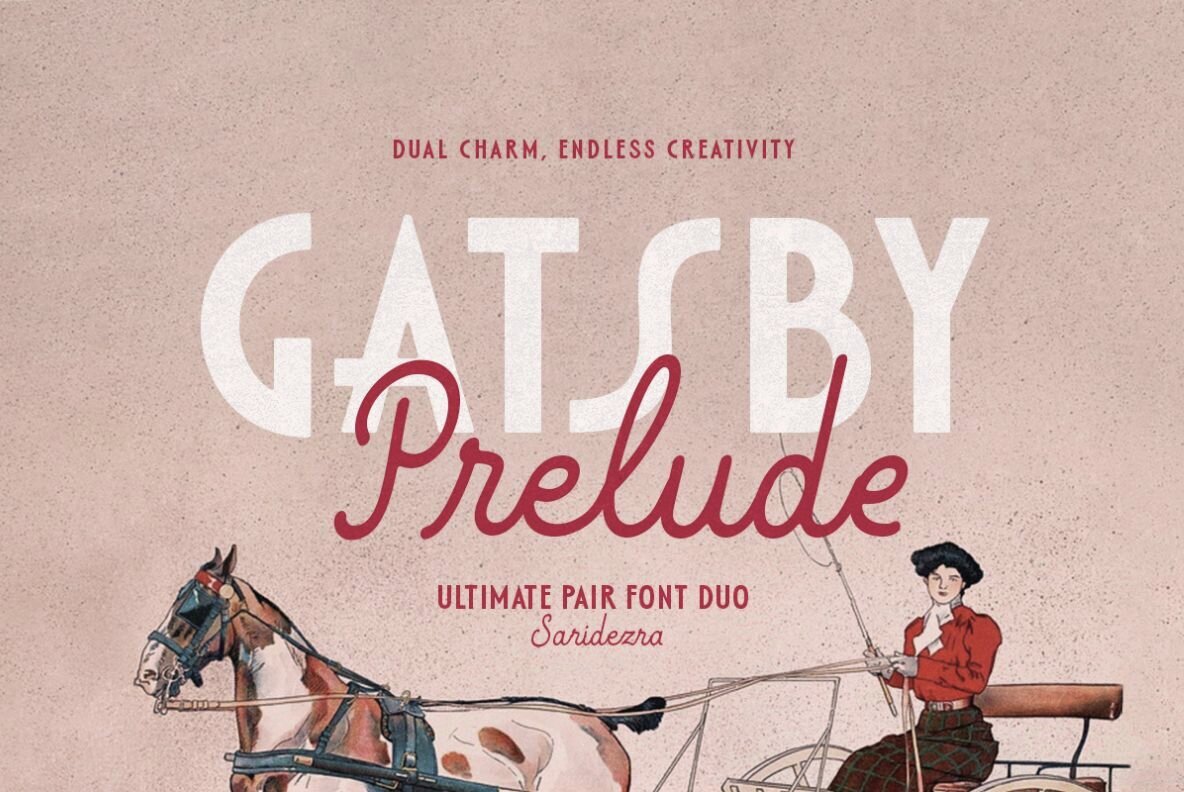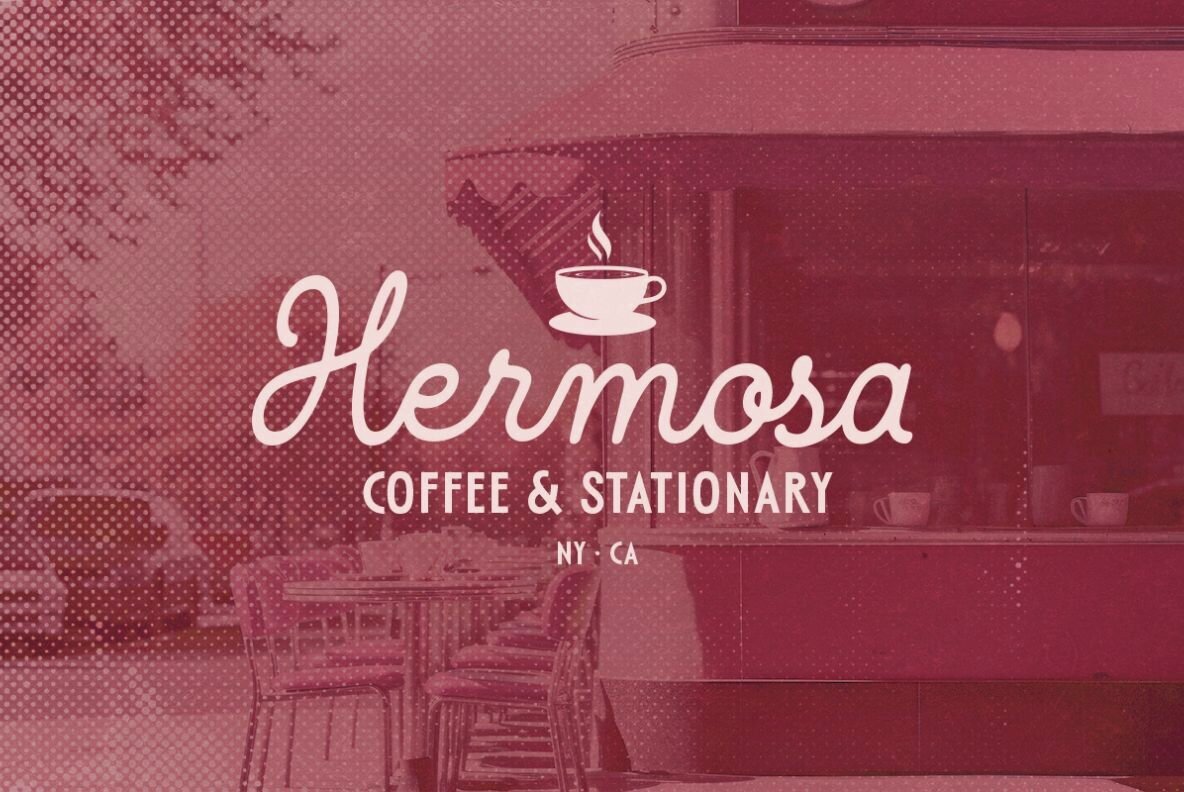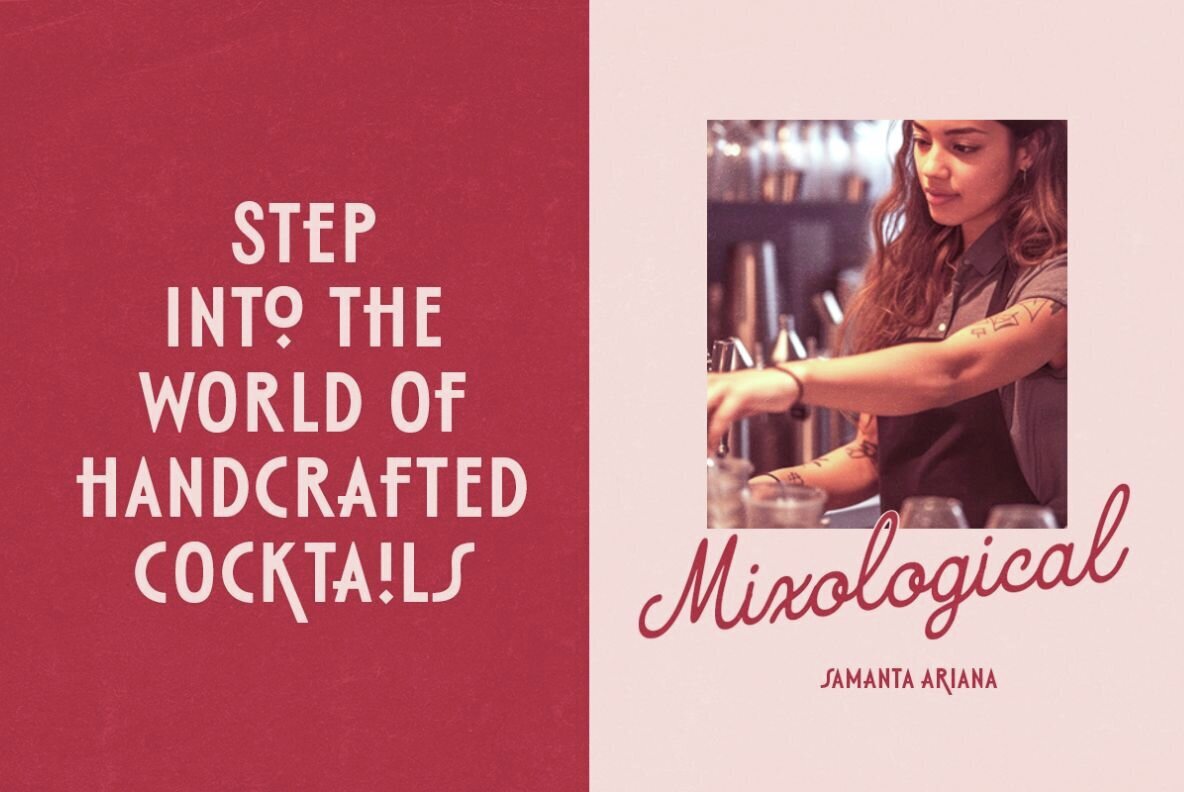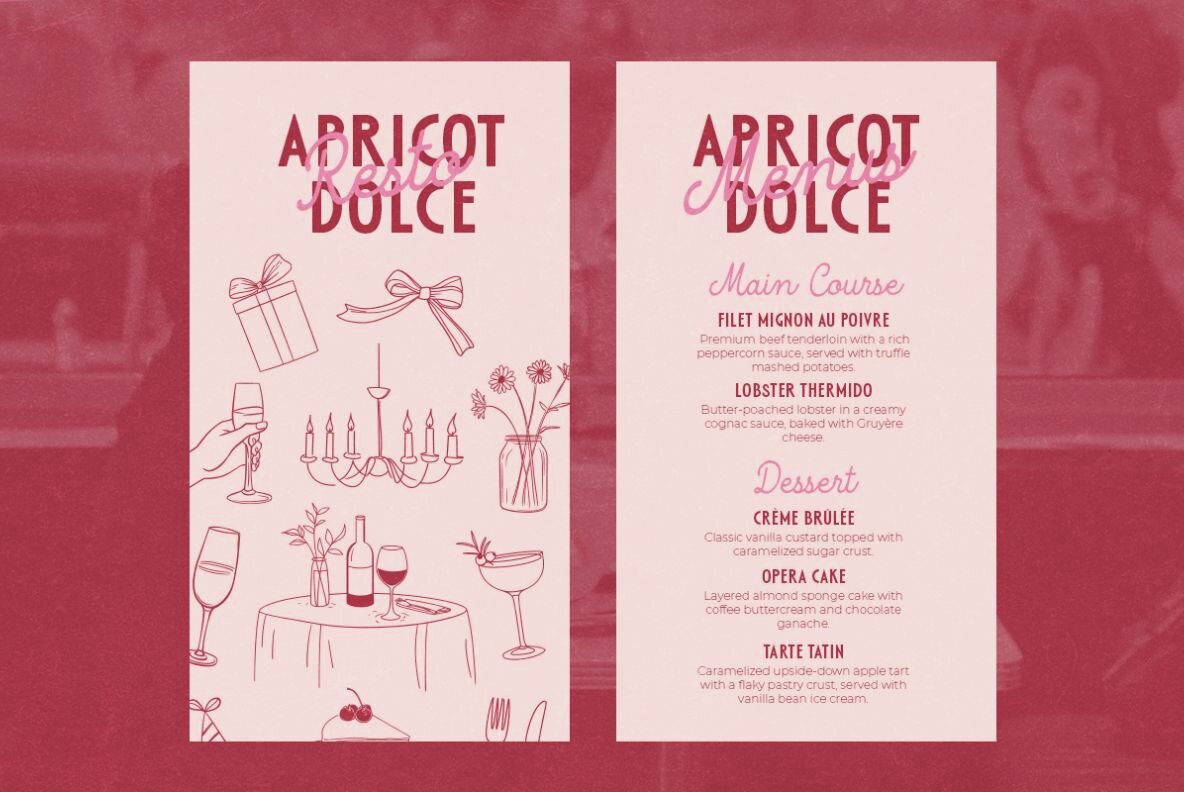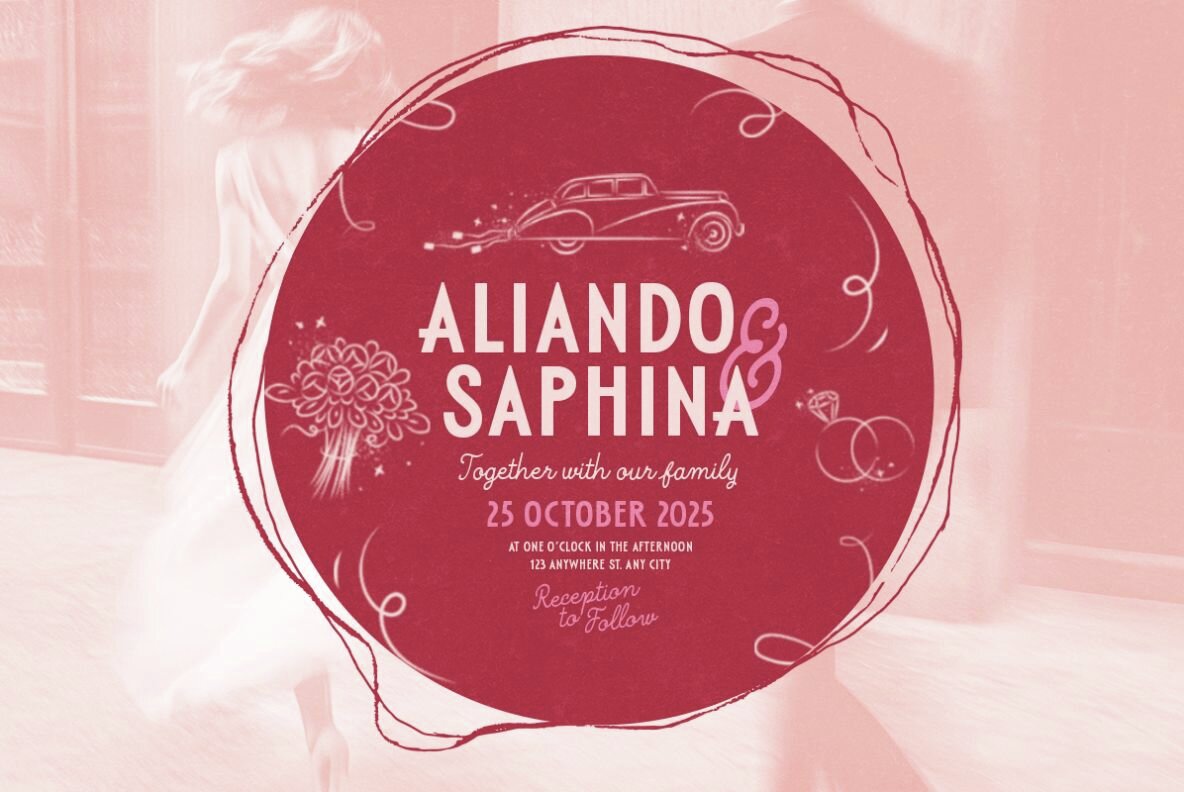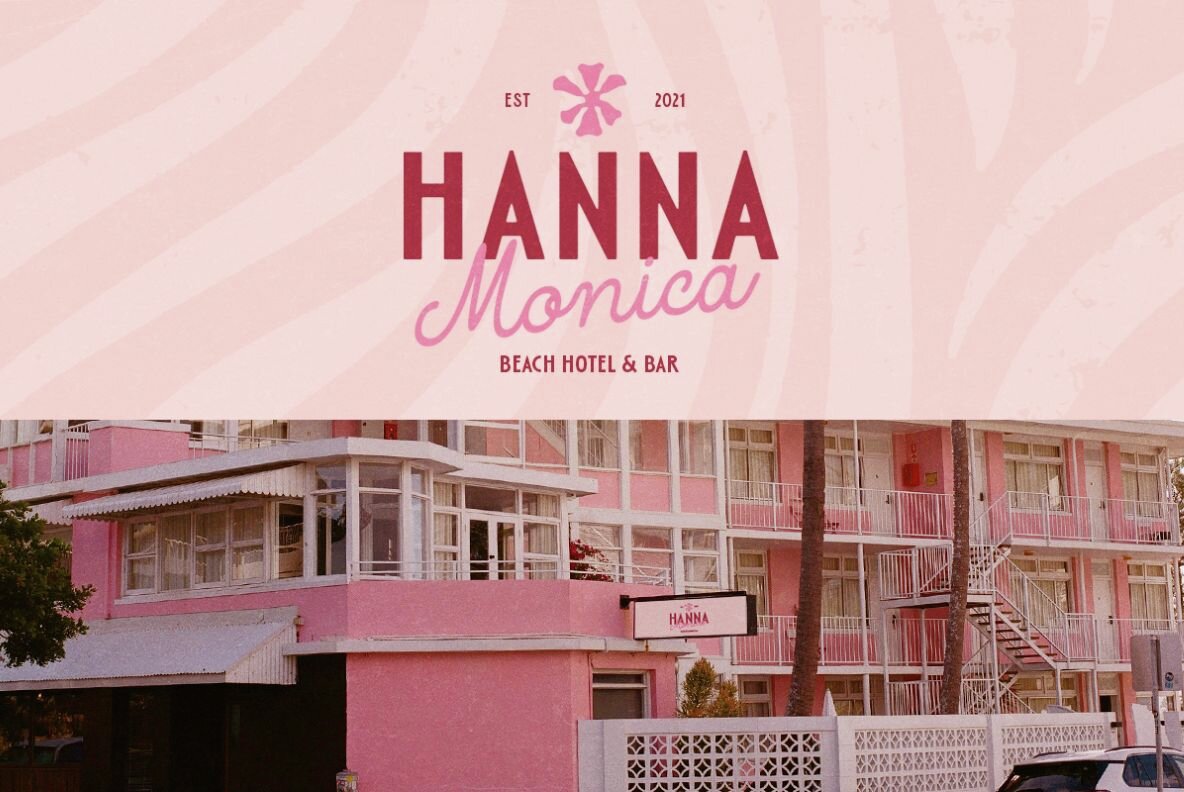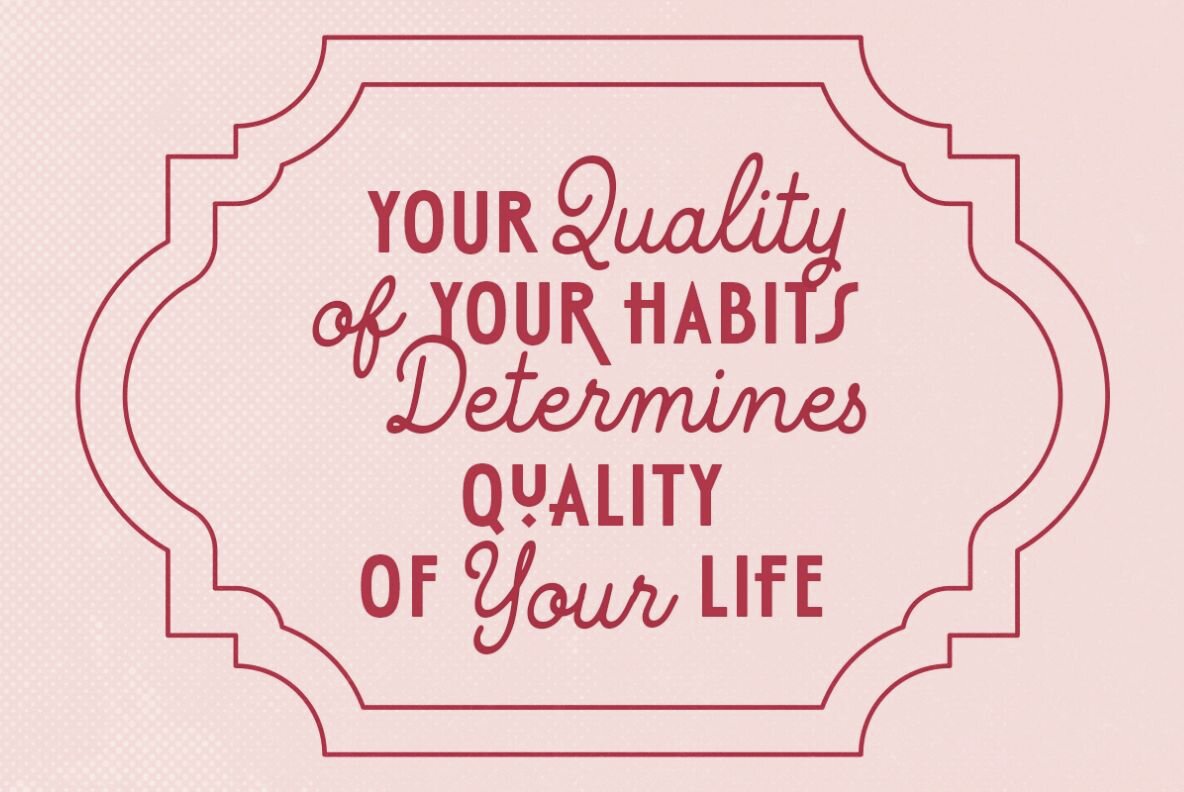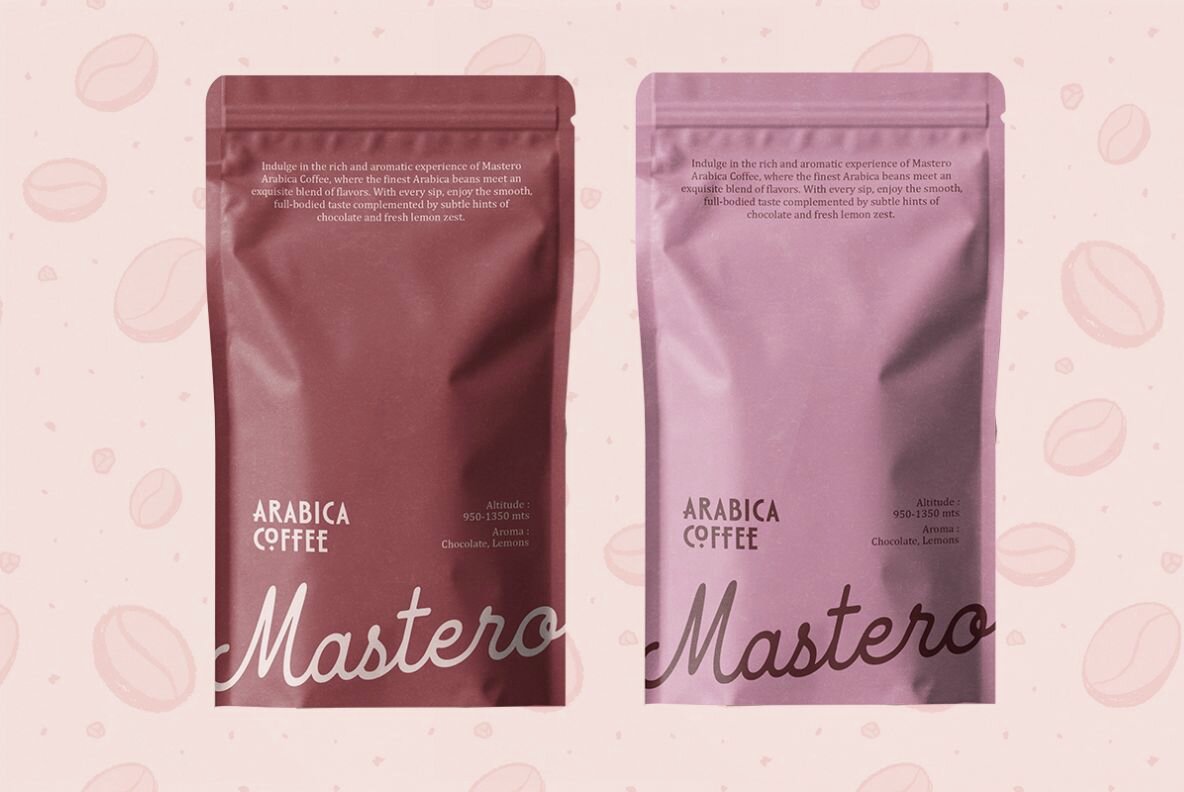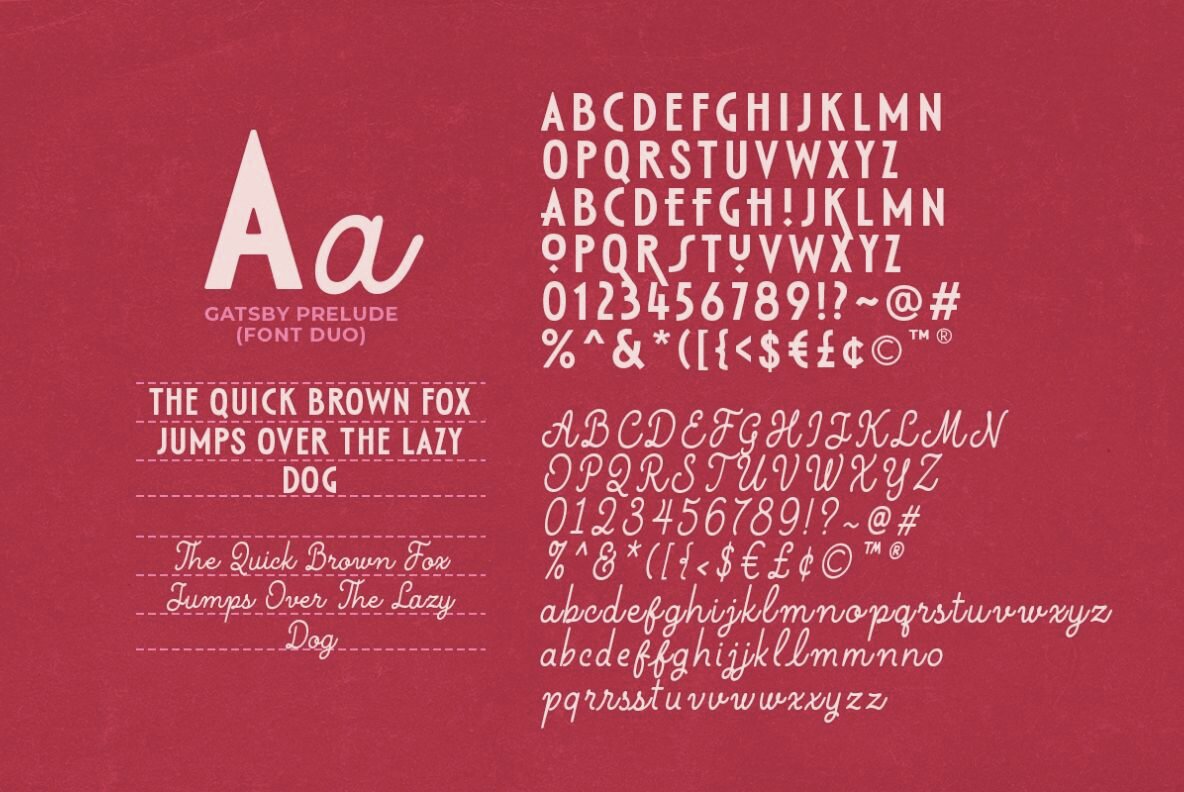
Gatsby Prelude Font
Gatsby Prelude Sans
Gatsby Prelude Script
Gatsby Prelude offers a captivating blend of art deco sans and monoline script, making this tall font duo a versatile choice for a range of design projects. Whether you're crafting a logotype, designing elegant wedding invitations, or updating your branding, Gatsby Prelude provides a stylish edge. The unique lowercase pairs seamlessly with the uppercase, enhancing your designs with a stunning flair.Gatsby Prelude Font Duo